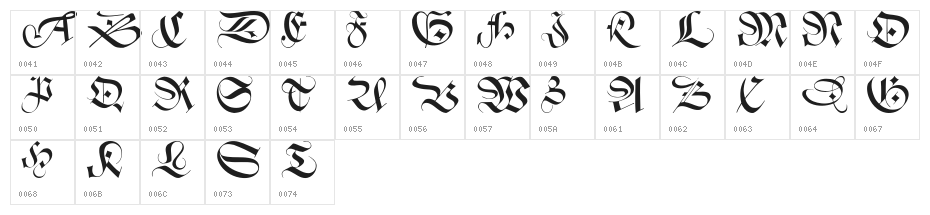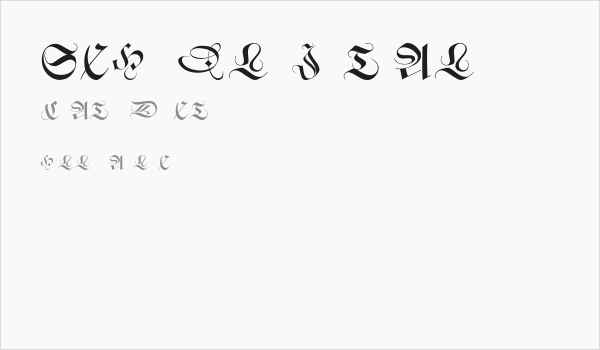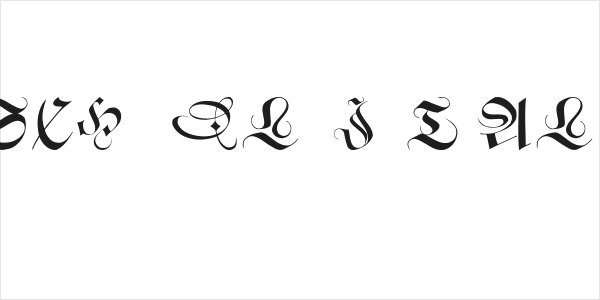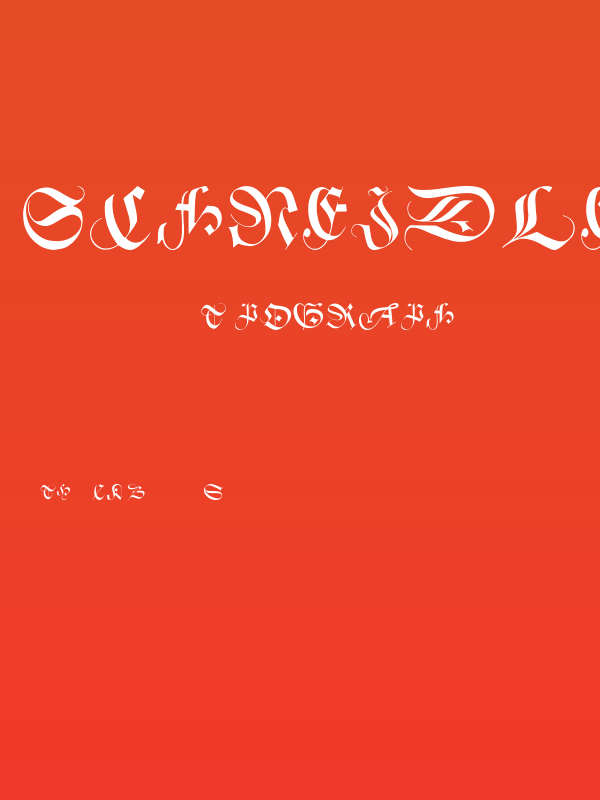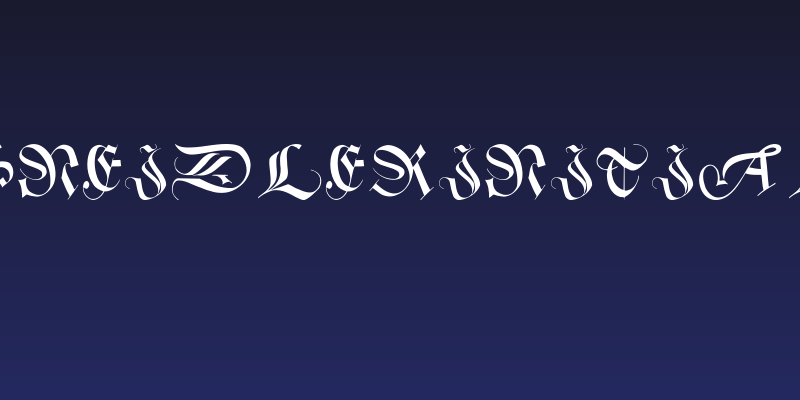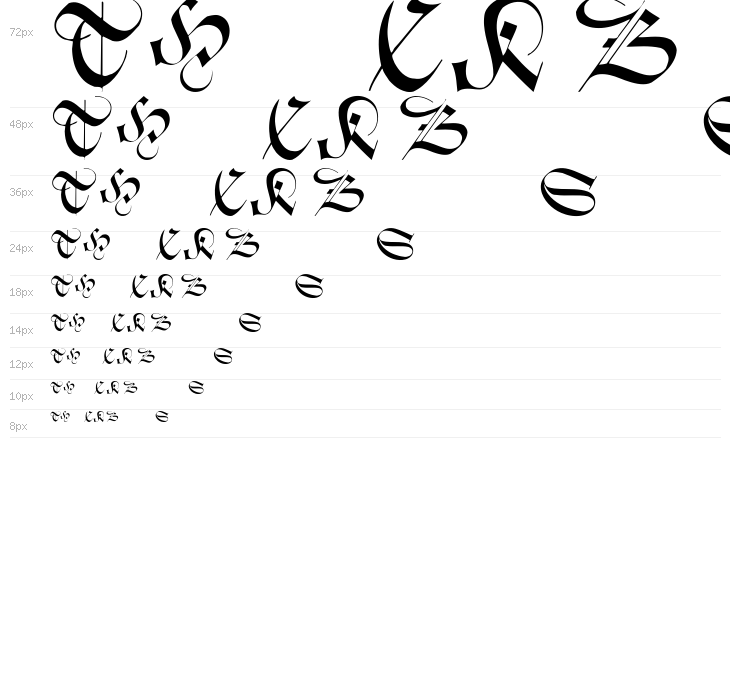
SchneidlerInitialen Font
SchneidlerInitialen Description
This font exudes a classic and ornate style, reminiscent of traditional calligraphy with a modern twist. The characters are intricately designed with elaborate flourishes and swashes, giving them a highly decorative appearance. The uppercase letters are particularly bold and striking, while the lowercase letters maintain a consistent elegance. The numerals and special characters are equally stylized, ensuring a cohesive look across all elements. This font is ideal for projects that require a touch of sophistication and historical charm, such as invitations, certificates, or branding for luxury products.
Overall StyleClassic
Use CaseHeadlines, Logos, Decorative text
Proposed ProjectsIdeal for invitations, certificates, luxury branding, and decorative headings.